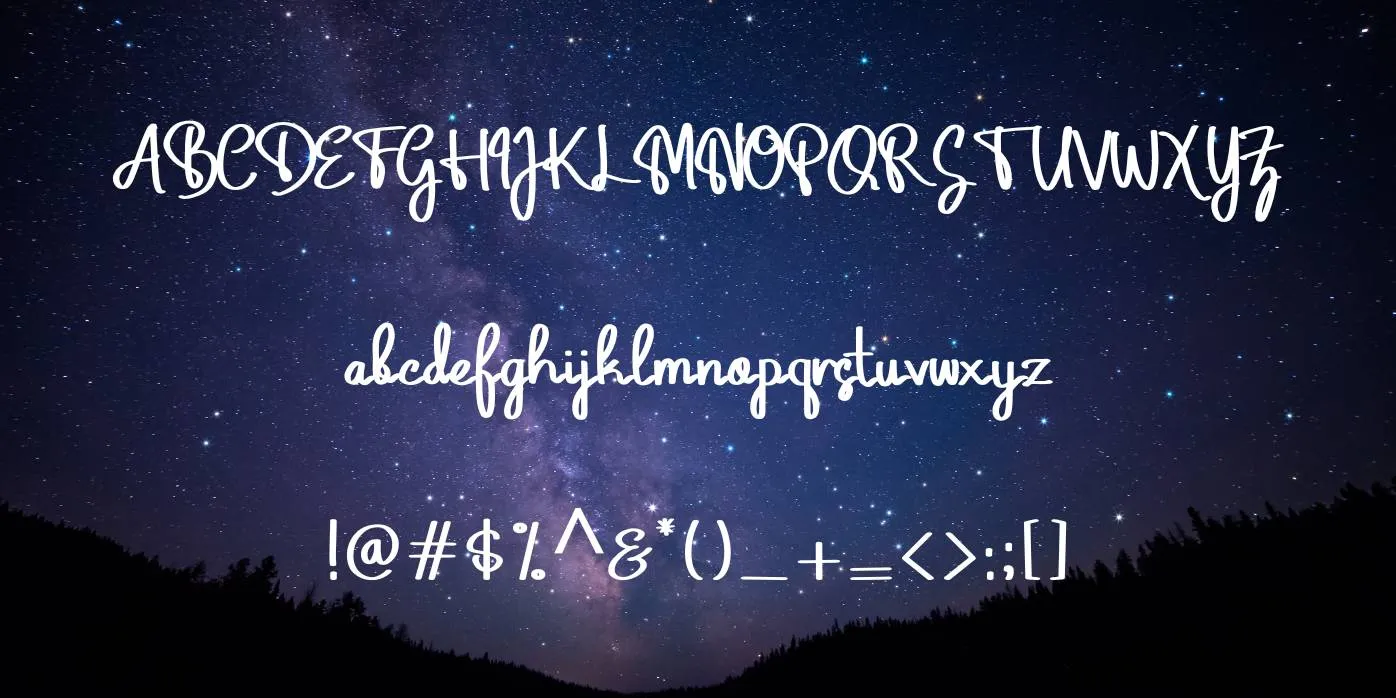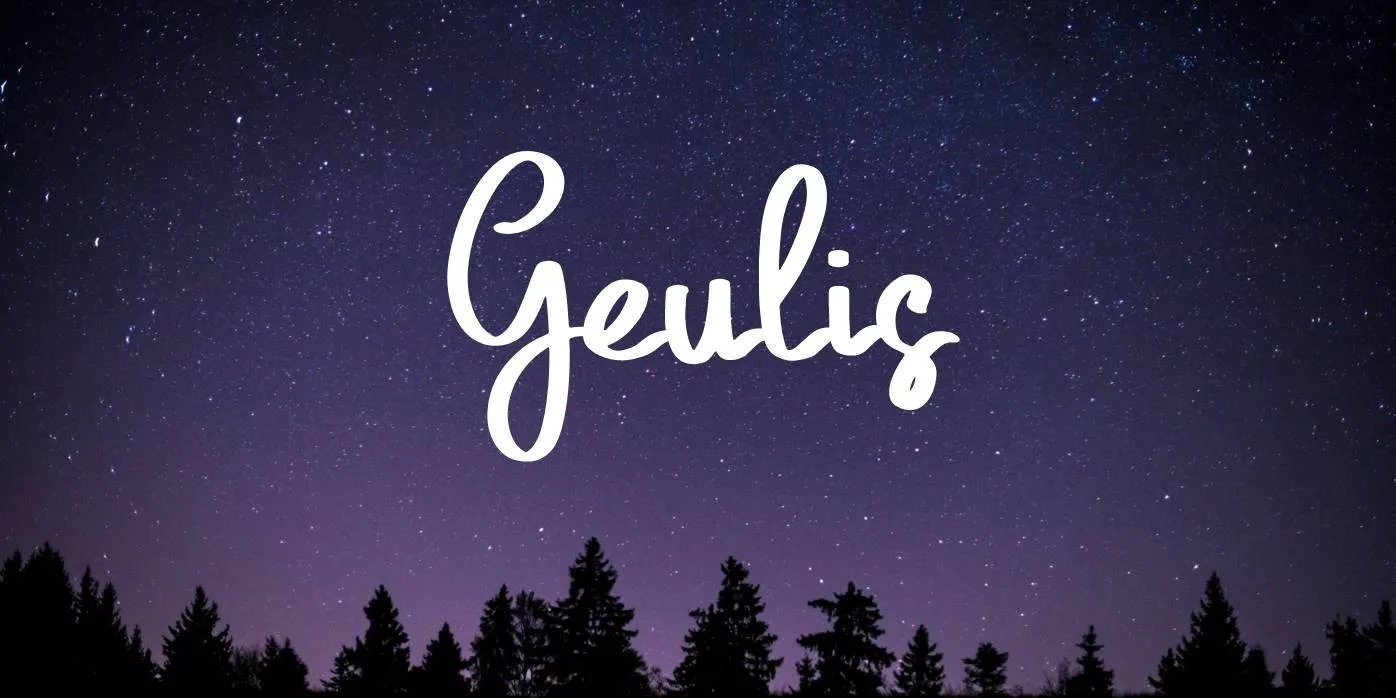
Geulis Font
Geulis Font is a unique font and has the interesting texture of alphabet set. This font was designed by a famous typographic designer Ahmad Syarif Afandi (Peterdraw). The weight of this typeface is Semi-Light and the width is Semi-condensed. The patterned nature of this font is Italic.
It contains 95 various types of characters such as uppercase letters, numbers, symbols, lowercase letters, and many more. This outstanding typeface includes 200 glyphs and 1000 units per Em. It is a very elegant font of handwritten form. You can be paired this texture with other fonts like the yaquote script font.
It supports file formats TTF (True Type Font) and OTF (OpenType Font). Usage This is a very unique and stylish font and can be used for making so many projects. This font is perfect for making all types of projects because of its amazing look. It has characters, symbols, numbers, small letters, capital letters, punctuations, and special characters.
You can use this font to make headlines to give an attractive look. It can also be used for making website designs and making titles for different brands. This font can be used for stylishly making logos. It can also be used for making branding and packaging.
You can make a resume using this font in MS Word and for making presentations. It is a good font for making print and digital media. You can also be used for making print templates and food menus. You can make a stylish overlay on any background image.